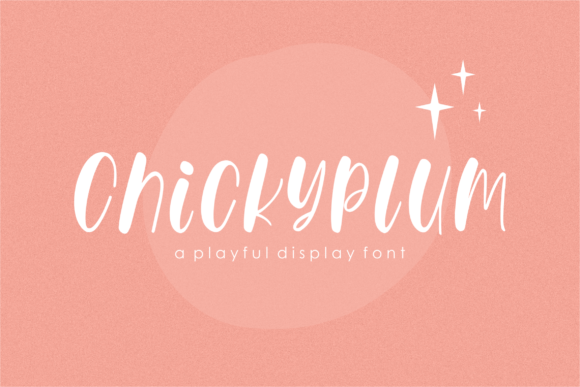
Unleashing Creativity with the Perfect Font: Chickyplum Font
As a designer, have you ever found yourself staring at a blank canvas, searching for that perfect combination of words and style to bring your vision to life? For me, it’s the moment when the creative juices start flowing, and the perfect font suddenly appears, elevating the entire design to a new level. That’s exactly what happens when you discover the Chickyplum Font.
This superb handwritten font is designed to make your work stand out with its elegant and curvy lines. Whether you’re working on product packaging, branding projects, magazine covers, or social media graphics, Chickyplum Font is the perfect addition to take your designs to the next level. Its versatility and unique charm make it a valuable asset for designers looking to add a touch of personality to their work.
Chickyplum Font Key Features
- Font Family: Chickyplum
- Unique Characteristics: Chickyplum features a playful, hand-drawn style with a mix of uppercase and lowercase letters, making it ideal for creative projects and children’s materials.
Chickyplum Font Review
Overall, I think Chickyplum Font has some great qualities that make it a fun and unique addition to any design project. Here are some things that work well:
- ✨ Unique and playful style: Chickyplum Font has a quirky, hand-drawn feel that’s perfect for adding a touch of whimsy to your designs.
- ✨ Good legibility: Despite its playful style, Chickyplum Font is still easy to read and understand, making it a great choice for body text or headlines.
- ✨ Versatile: Chickyplum Font comes in a range of weights and styles, from light and delicate to bold and playful, giving you plenty of options for customizing your design.
- ⚠️ Limited language support: Chickyplum Font is primarily designed for English and may not support other languages as well.
- ⚠️ Not ideal for formal or professional designs: While Chickyplum Font is great for playful and creative projects, it may not be the best choice for formal or professional designs where a more serious tone is required.
Overall, I think Chickyplum Font is a great addition to any designer’s toolkit. It’s perfect for adding a touch of personality to your designs and can be a lot of fun to work with. Just be aware of its limitations and use it in projects where it’s the best fit.
Getting the Most Out of the Chickyplum Font
To get the most out of the Chickyplum Font, try experimenting with different font sizes, colors, and styles.
Use the font to create eye-catching headlines or to add a touch of whimsy to your designs.
The Chickyplum Font is perfect for:
Creating playful and whimsical designs.
Adding a touch of elegance to your designs.
Creating invitations, party decorations, and other event-related materials.
Comparison: While Chickyplum Font has a more ornate and decorative feel, Lato Font is more straightforward and easy to read. Lato Font is a better choice for designs that require a clean and simple look.
Is Chickyplum a variable font?
No, Chickyplum is a static font. It does not support variable font features, such as interpolation or axis control. However, it is designed to work well at a wide range of font sizes and line heights, making it a versatile choice for a variety of design applications.